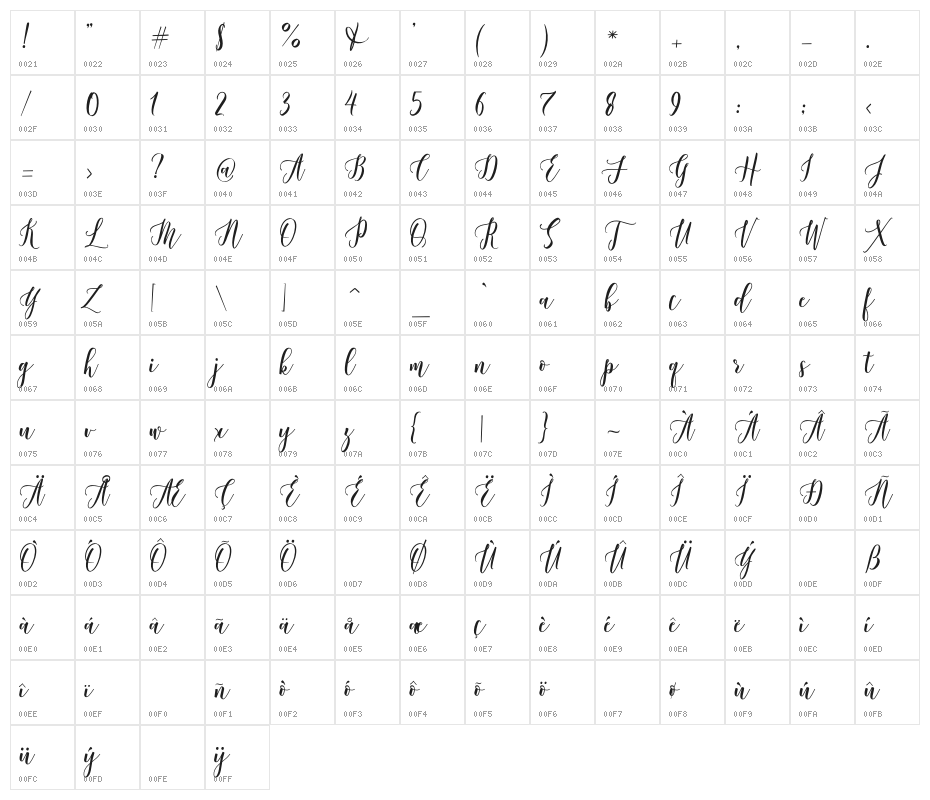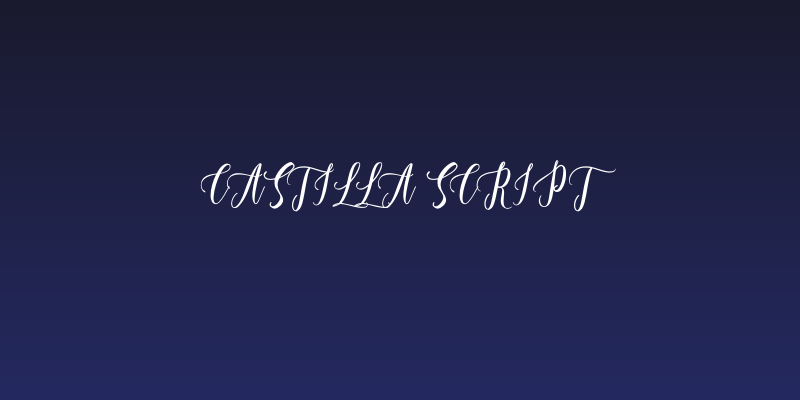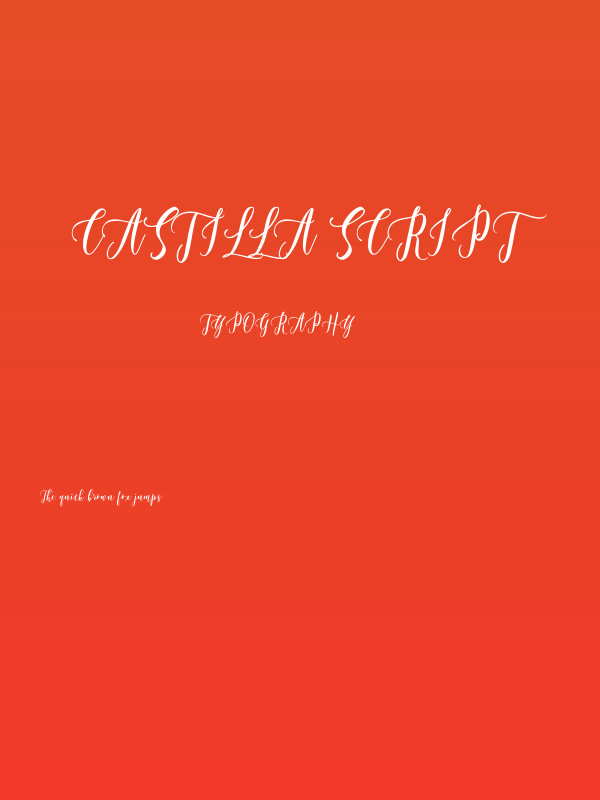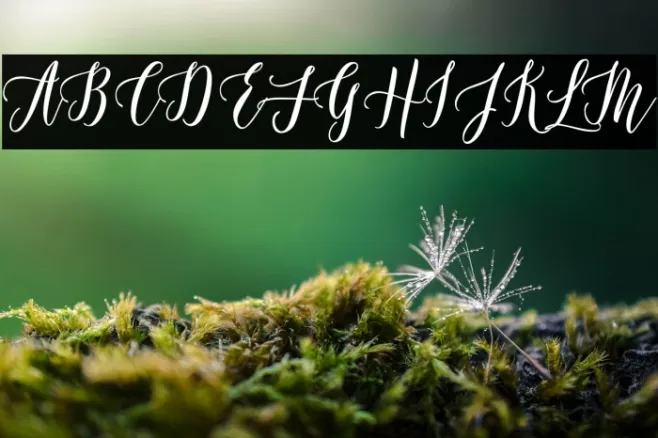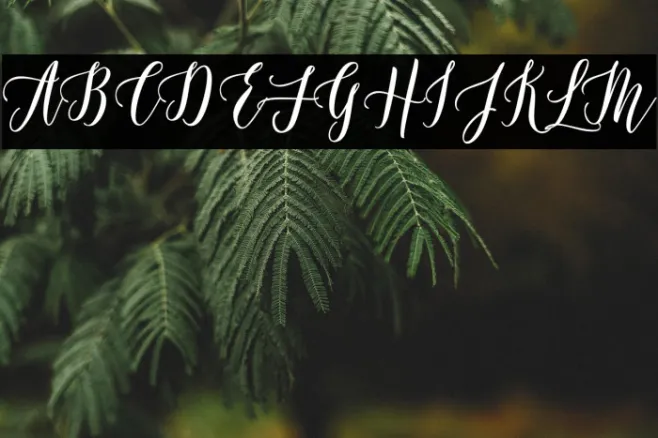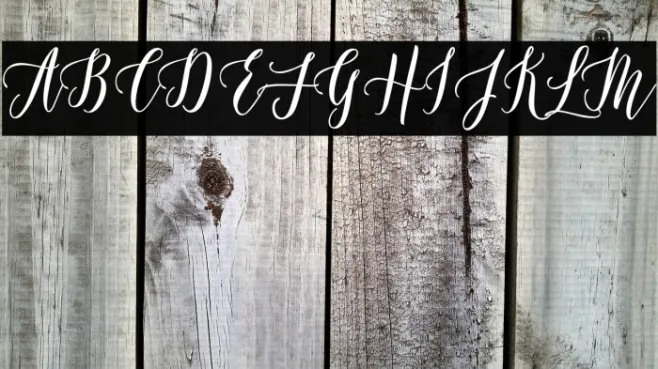
Castilla Script Font
Castilla Script Description
This elegant script font features flowing, cursive letters with a refined and sophisticated appearance. The uppercase letters are characterized by their graceful loops and swashes, giving them a sense of movement and fluidity. The lowercase letters maintain a consistent style, with smooth connections and a slightly more understated flair. The numerals are stylish and complement the overall script design, while the special characters retain the same elegant curves. This font is perfect for adding a touch of class and elegance to any project, making it ideal for invitations, branding, and decorative purposes.
| Use Case | Invitations, Branding, Decorative |
| Proposed Projects | Ideal for wedding invitations, branding, greeting cards, and decorative signage. |